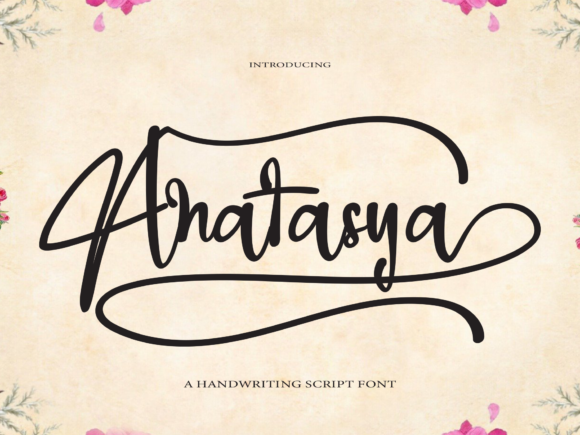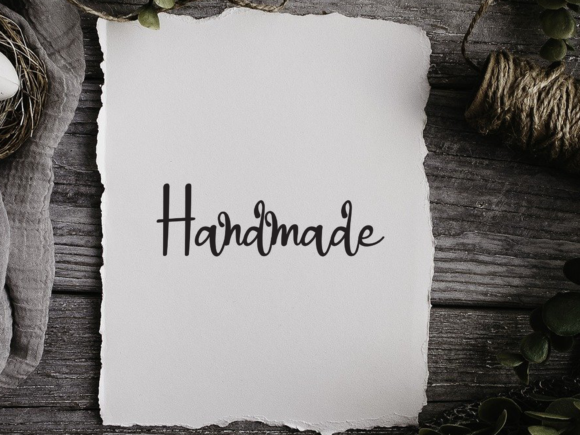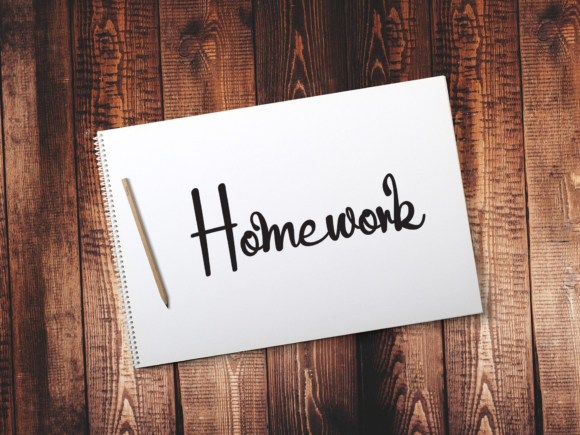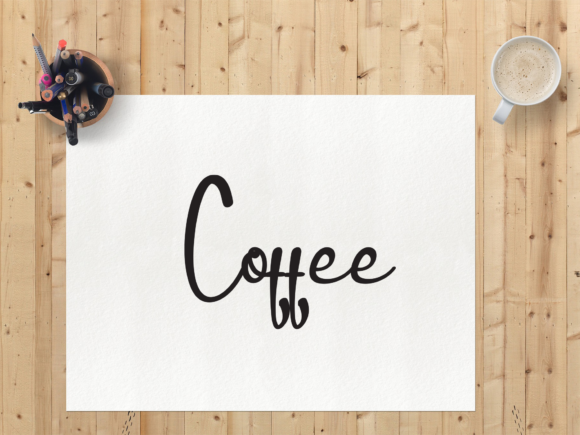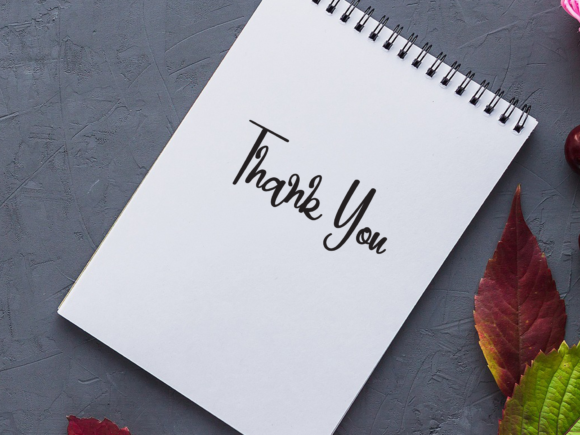
Anatasya Font
About Anatasya Font
Anatasya is a sweet handwritten font that is made with great care in order to produce the expected outcomes. This font can be used for writing various kinds of products according to their respective needs.